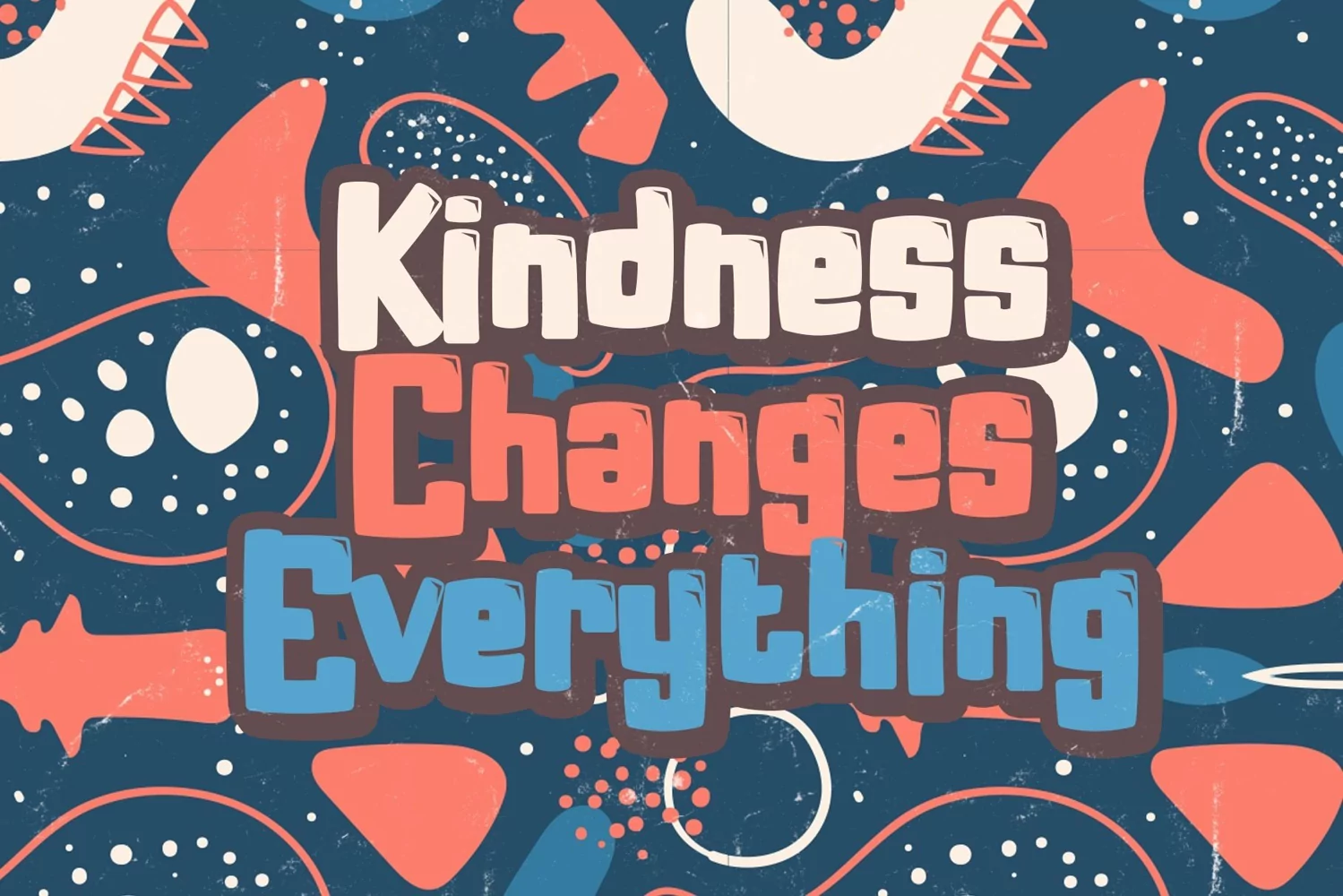
Briosty is a display typeface. Perfect for display, quotes, print, t-shirt, mockup, pin, mug, business card, invitation card, clothing, branding, and many more.